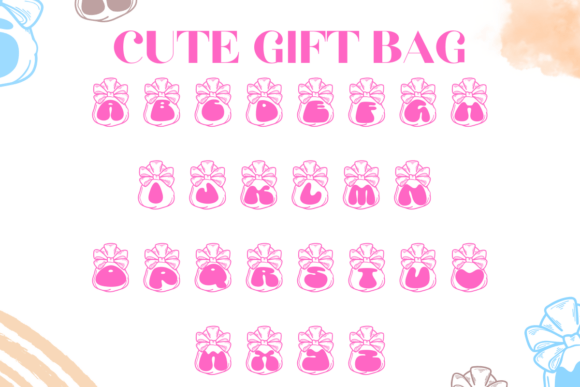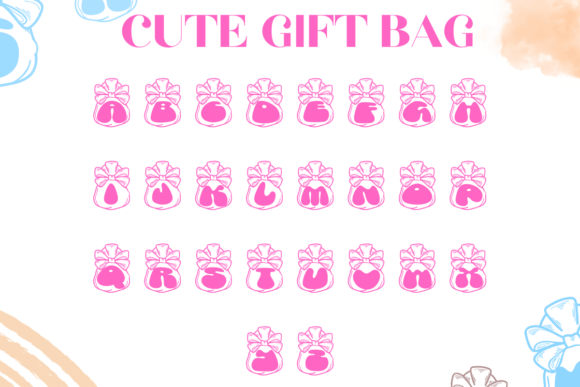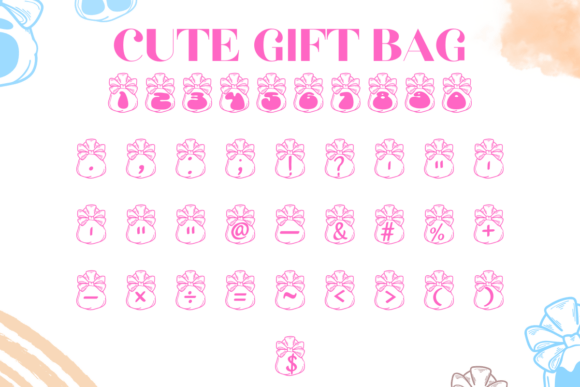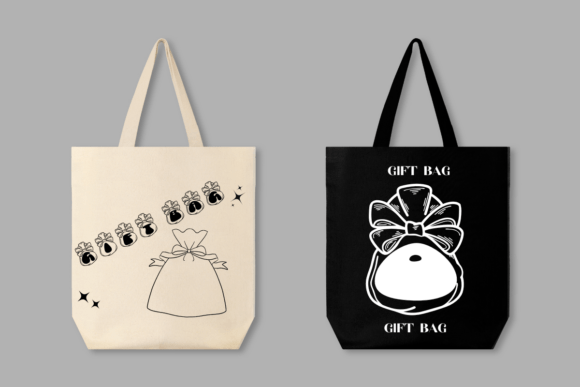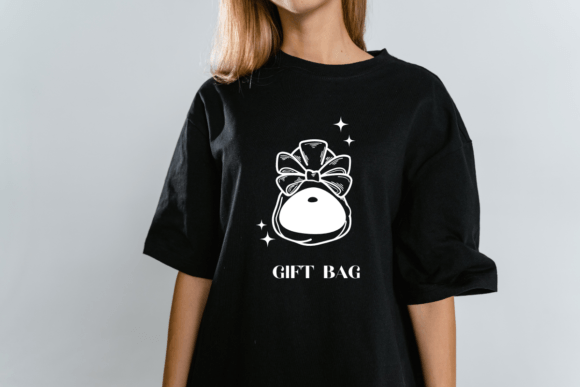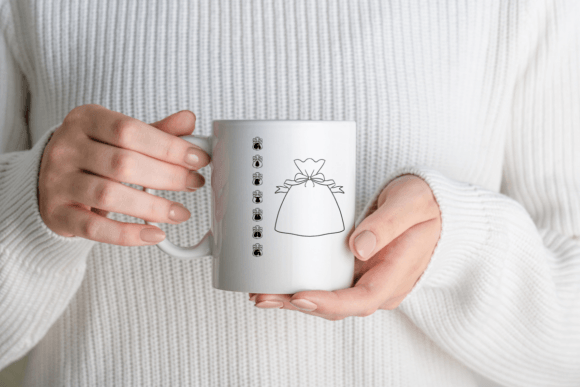
Cute Gift Bag Font: Add a Touch of Whimsy to Your Designs
Are you looking for a font that can add a dash of playfulness and charm to your designs? Look no further than the Cute Gift Bag font! This quirky decorative font is perfect for crafters, designers, and anyone who loves to add a personal touch to their creations. In this article, we’ll explore the features and uses of the Cute Gift Bag font, and how you can incorporate it into your designs.
What is Cute Gift Bag Font?
Cute Gift Bag is a unique and decorative font that is designed to add a touch of whimsy to your designs. Its quirky and playful style makes it perfect for a variety of projects, from personal notes and diaries to greeting cards and gift tags. The font is highly versatile and can be used for both digital and print designs.
Features of Cute Gift Bag Font
- Quirky and Playful Style: The Cute Gift Bag font has a distinctive and charming style that is sure to grab attention.
- Highly Versatile: The font can be used for a wide range of designs, from notes and diaries to greeting cards, banners, and social media posts.
- Easy to Read: Despite its playful style, the Cute Gift Bag font is easy to read and understand, making it perfect for both personal and professional use.
Uses of Cute Gift Bag Font
The Cute Gift Bag font is perfect for a variety of projects, including:
- Notes and Diaries: Add a personal touch to your notes and diaries with the Cute Gift Bag font.
- Greeting Cards: Create unique and charming greeting cards for special occasions.
- Banners and Signs: Use the Cute Gift Bag font to create eye-catching banners and signs for events and promotions.
- Mugs and Water Bottles: Add a touch of whimsy to your mugs and water bottles with the Cute Gift Bag font.
- Social Media Posts: Use the Cute Gift Bag font to create engaging and playful social media posts.
- Stationery and Paper Crafts: The Cute Gift Bag font is perfect for stationery and paper crafts, such as gift tags, journaling, and scrapbooking.
- T-Shirts and Apparel: Use the Cute Gift Bag font to create unique and playful designs for t-shirts and apparel.
Tips for Using Cute Gift Bag Font
Here are some tips for using the Cute Gift Bag font:
- Experiment with Colors: The Cute Gift Bag font looks great in a variety of colors, so don’t be afraid to experiment and find the perfect color scheme for your design.
- Mix and Match Fonts: Combine the Cute Gift Bag font with other fonts to create a unique and interesting design.
- Use it for Headings and Titles: The Cute Gift Bag font is perfect for headings and titles, adding a touch of whimsy and charm to your designs.
The Cute Gift Bag font is a versatile and charming font that can add a touch of whimsy to your designs. Whether you’re a crafter, designer, or simply someone who loves to add a personal touch to their creations, this font is perfect for you. With its quirky and playful style, the Cute Gift Bag font is sure to grab attention and make your designs stand out. So why not give it a try and see how you can use it to add a touch of charm to your designs?
Get Creative with Cute Gift Bag Font